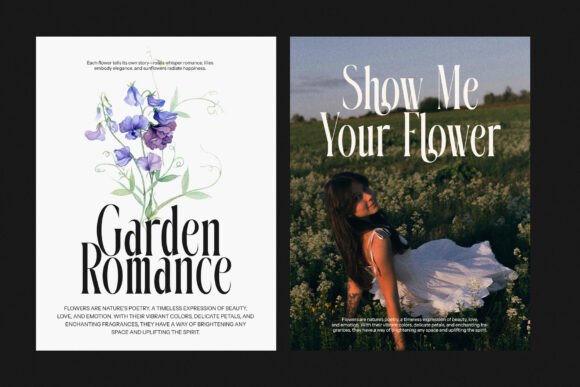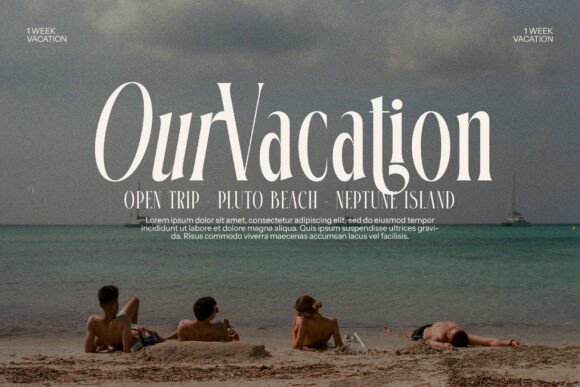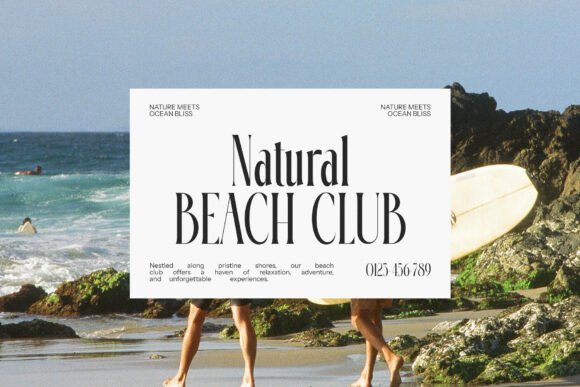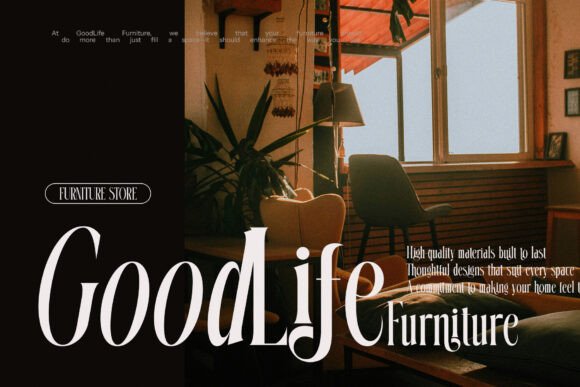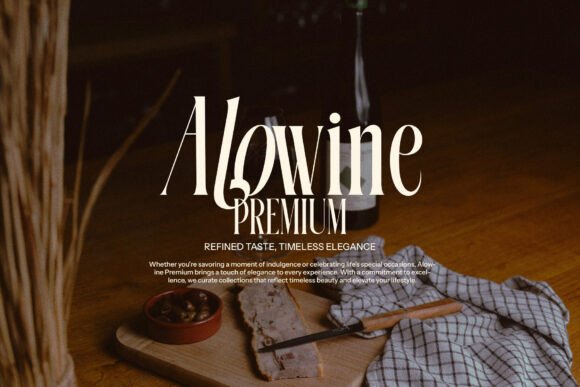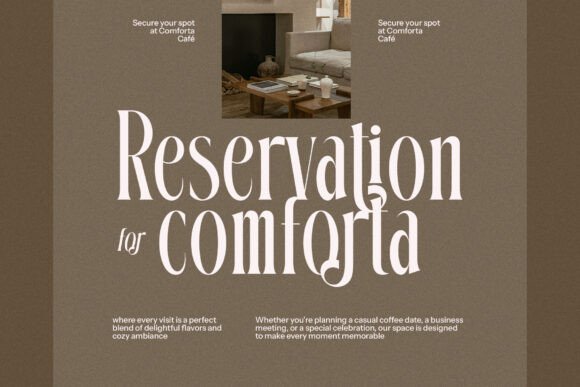
Glimik Font: Elevate Your Design with Elegance and Sophistication
In the world of typography, a font can make or break the visual appeal of a design. For designers and crafters seeking to add a touch of sophistication and elegance to their projects, Glimik Ligature Serif Font is an exceptional choice. This modern and refined typeface offers a unique blend of contemporary style and classic serif elements, making it perfect for high-end branding, logos, and creative projects.
The Distinctive Features of Glimik Font
Glimik Ligature Serif Font stands out from traditional serif fonts with its distinctive ligatures and alternate features. Ligatures are special characters that combine multiple letters into a single, fluid shape, creating a beautiful and artistic twist on traditional typography. The ligatures in Glimik seamlessly merge letters, providing an elegant and refined appearance that is sure to capture attention. Additionally, the font offers alternate characters, allowing designers to further customize their text and add a unique touch to their designs.
A Versatile Choice for Creative Projects
Whether you’re working on a luxury brand’s logo, a boutique’s identity, or a premium product’s packaging, Glimik Ligature Serif Font is a versatile choice that can elevate any design. Its bold, yet refined appearance makes it perfect for a wide range of applications, from websites and magazines to advertisements and product packaging. The font’s modern design and unique letterforms make it particularly well-suited for creative industries, food branding, and fashion.
Enhance Visual Appeal and Professionalism
The use of Glimik Ligature Serif Font can significantly enhance the visual appeal and professionalism of any layout. Its elegant and refined appearance adds a touch of sophistication, making it perfect for designers and crafters seeking to create high-end designs. The font’s ligatures and alternate features allow for a high degree of customization, enabling designers to create unique and eye-catching text that sets their designs apart.
Ideal for High-End Branding and Logos
For designers working on high-end branding and logos, Glimik Ligature Serif Font is an exceptional choice. Its distinctive ligatures and alternate features provide a unique and memorable appearance that can help establish a brand’s identity. The font’s bold, yet refined appearance makes it perfect for luxury brands, boutique identities, and premium products, allowing designers to create a lasting impression.
Perfect for Creative Industries
Glimik Ligature Serif Font is particularly well-suited for creative industries, including food branding and fashion. Its modern design and unique letterforms make it perfect for designers seeking to create visually appealing and sophisticated designs. The font’s ligatures and alternate features allow for a high degree of customization, enabling designers to create unique and eye-catching text that sets their designs apart.
Key Features of Glimik Font
- Modern and refined typeface with a unique blend of contemporary style and classic serif elements
- Distinctive ligatures and alternate features for a high degree of customization
- Ideal for high-end branding, logos, and creative projects
- Perfect for luxury brands, boutique identities, and premium products
- Well-suited for creative industries, food branding, and fashion
- Elegant and refined appearance that adds a touch of sophistication to any design
In conclusion, Glimik Ligature Serif Font is an exceptional choice for designers and crafters seeking to add a touch of elegance and sophistication to their designs. Its unique blend of contemporary style and classic serif elements, combined with its distinctive ligatures and alternate features, make it perfect for high-end branding, logos, and creative projects. With its versatility and high degree of customization, Glimik Ligature Serif Font is a valuable addition to any designer’s toolkit.